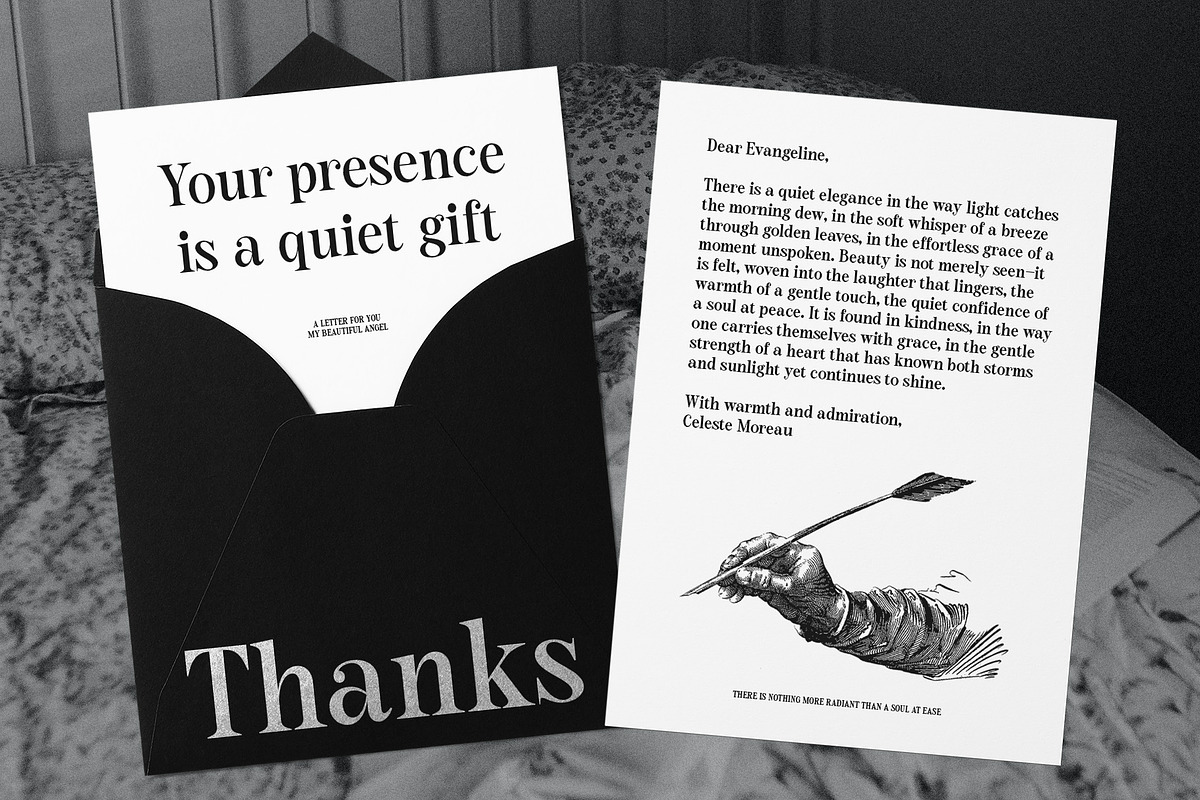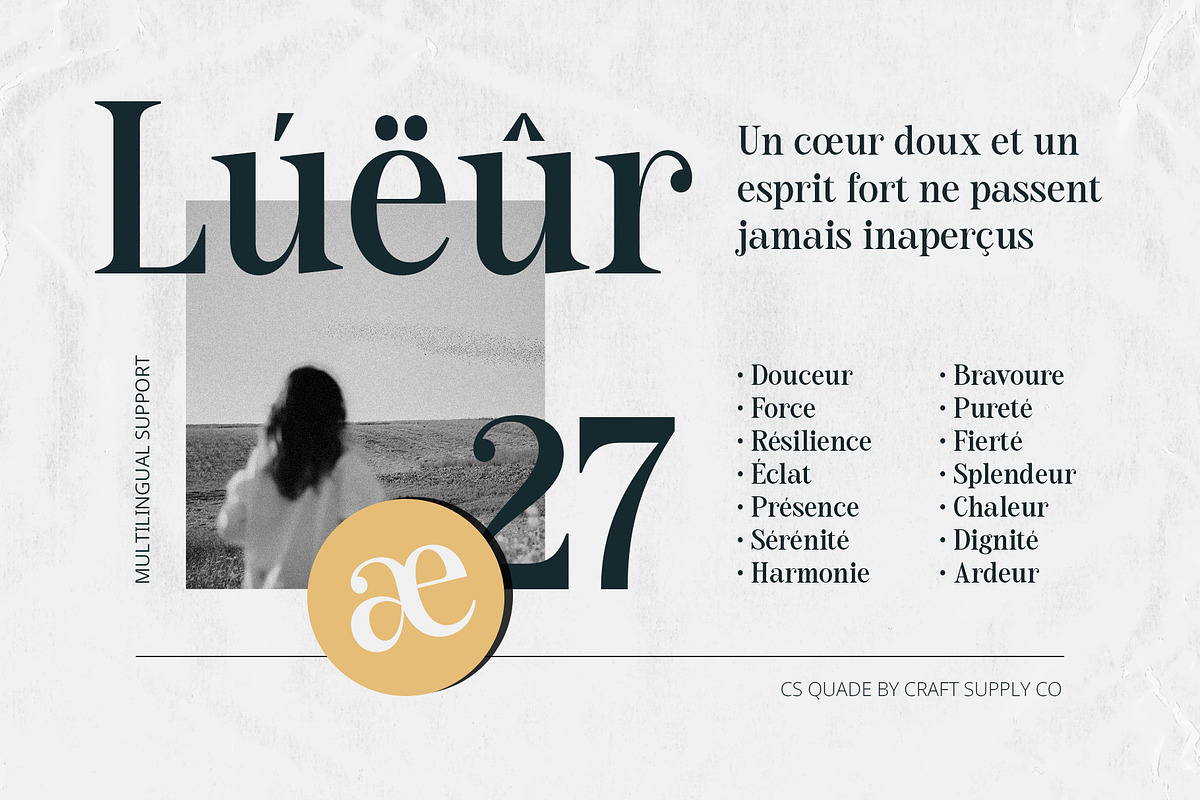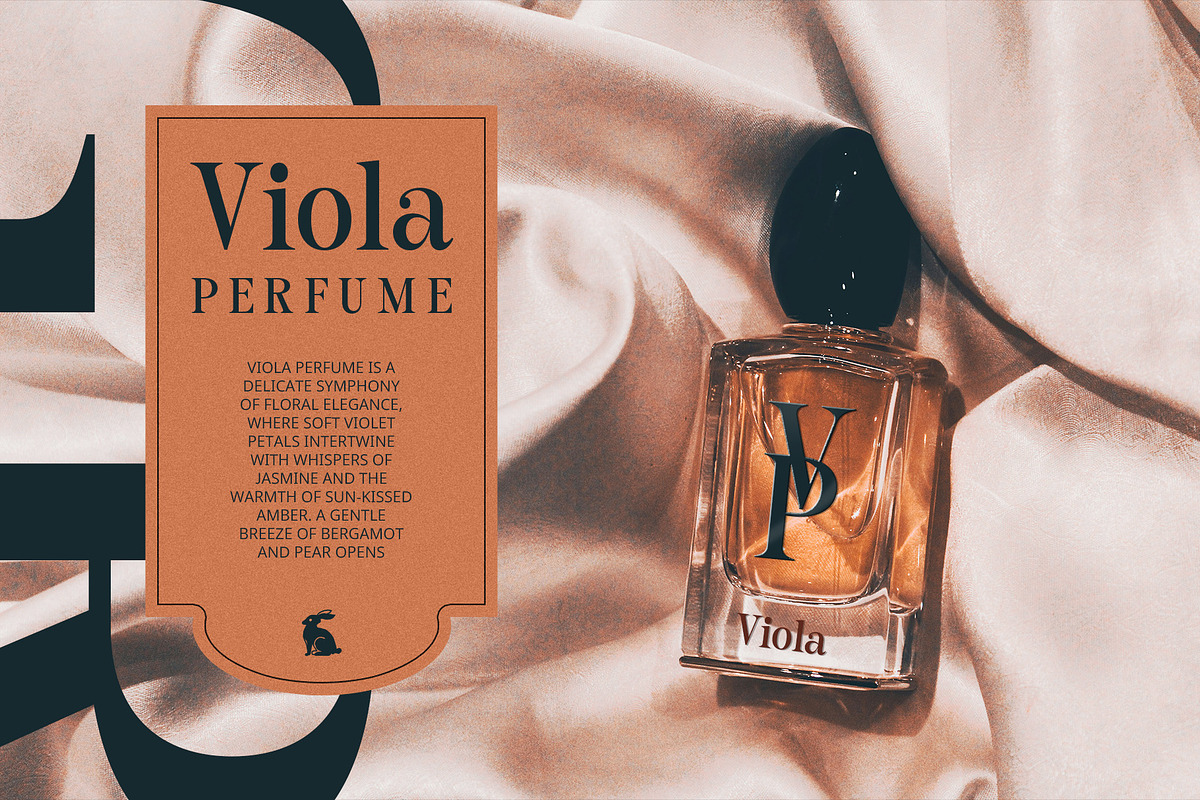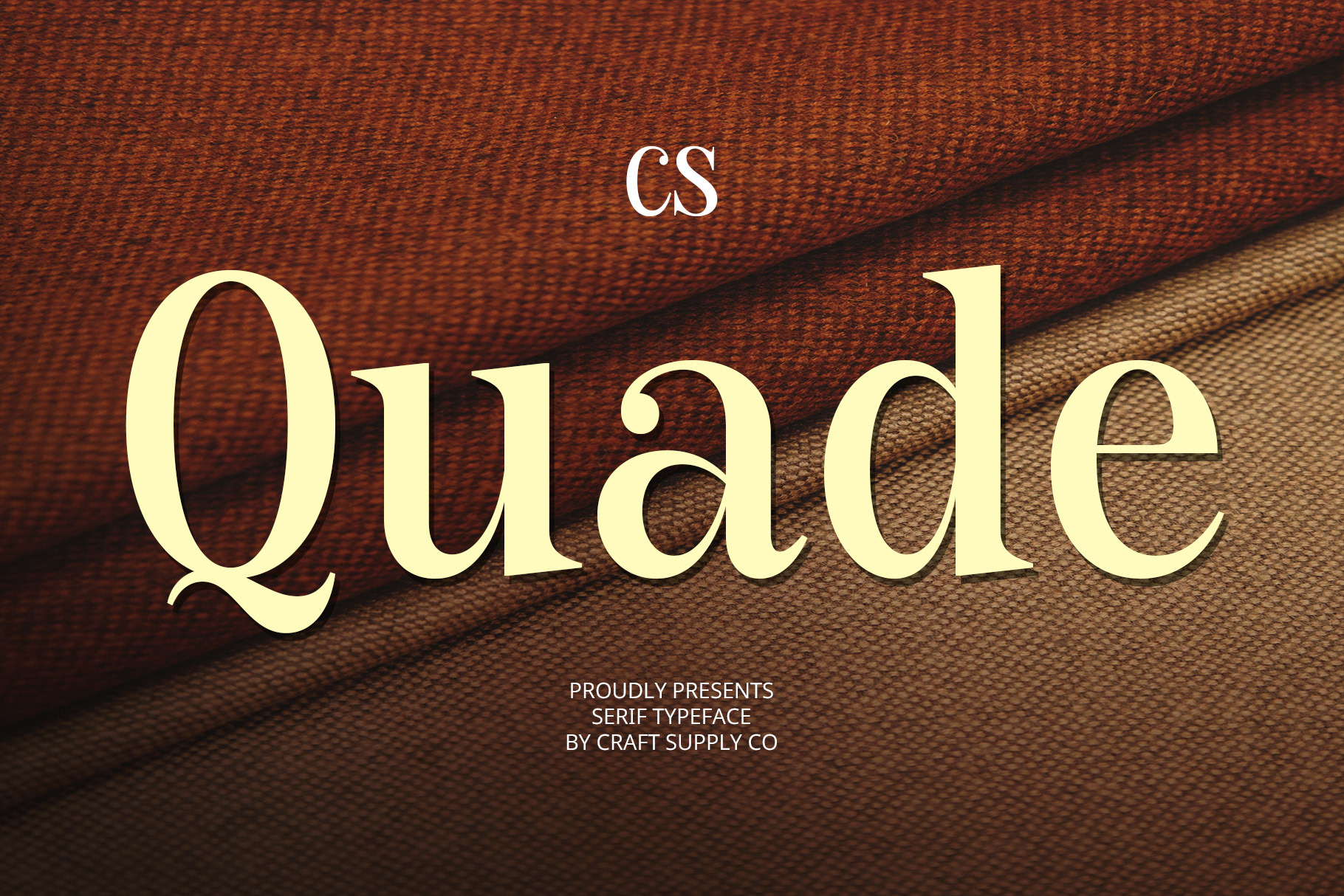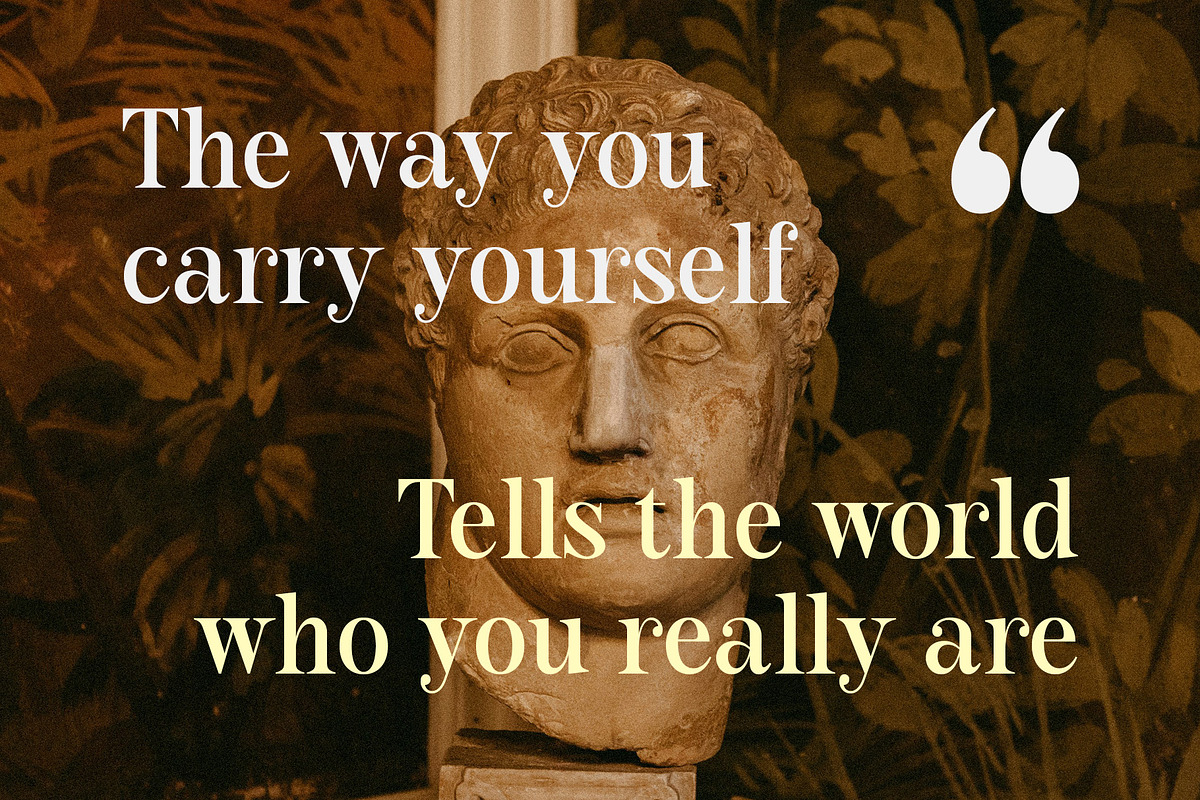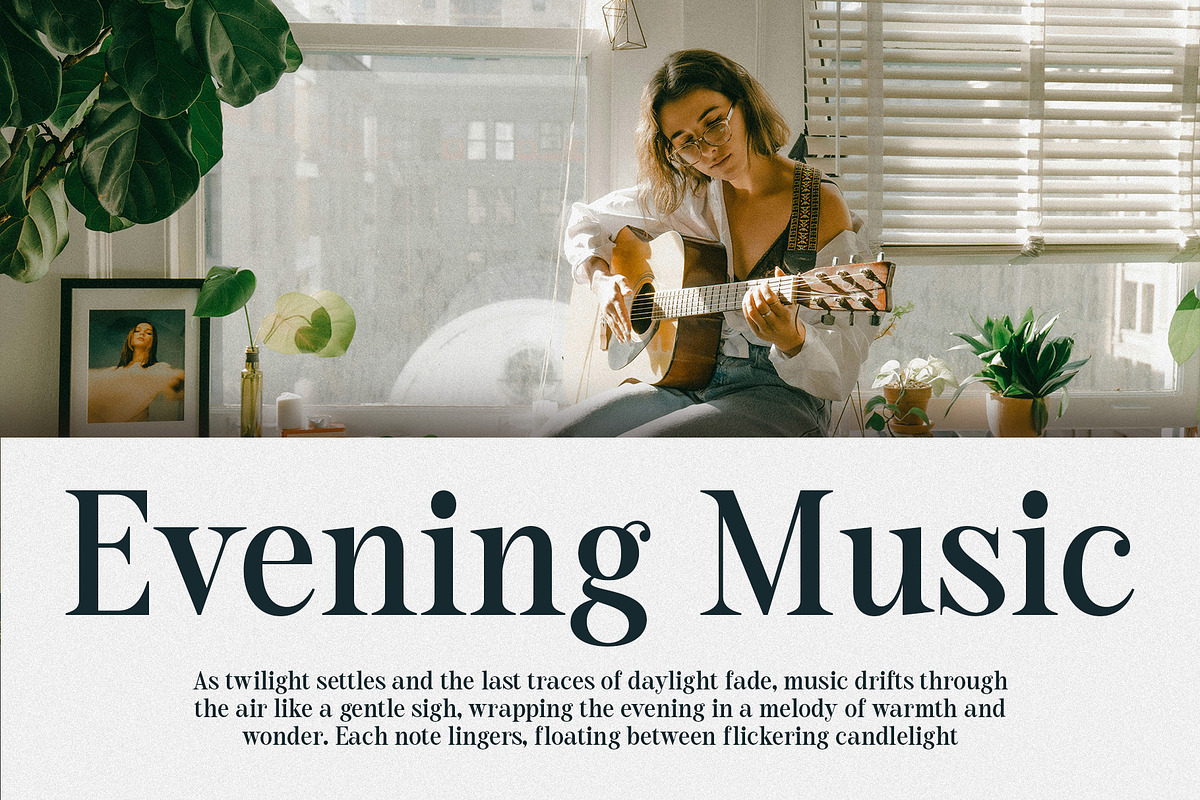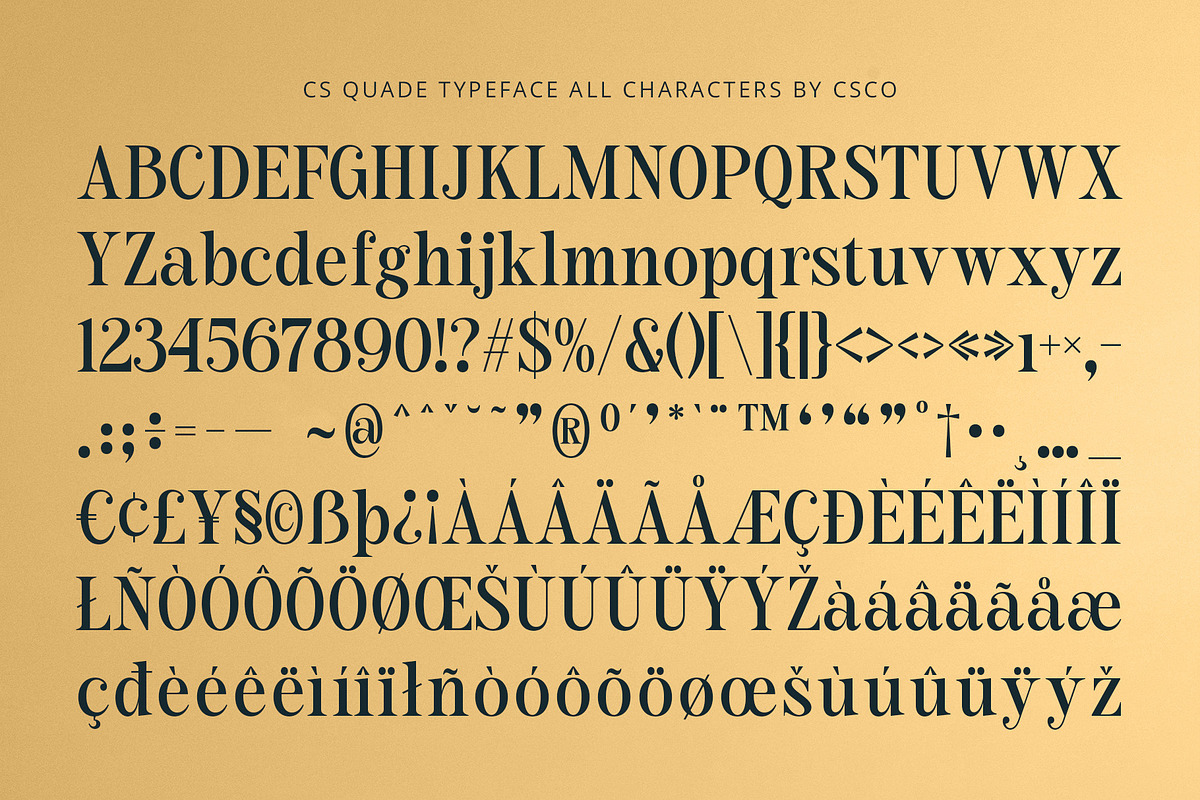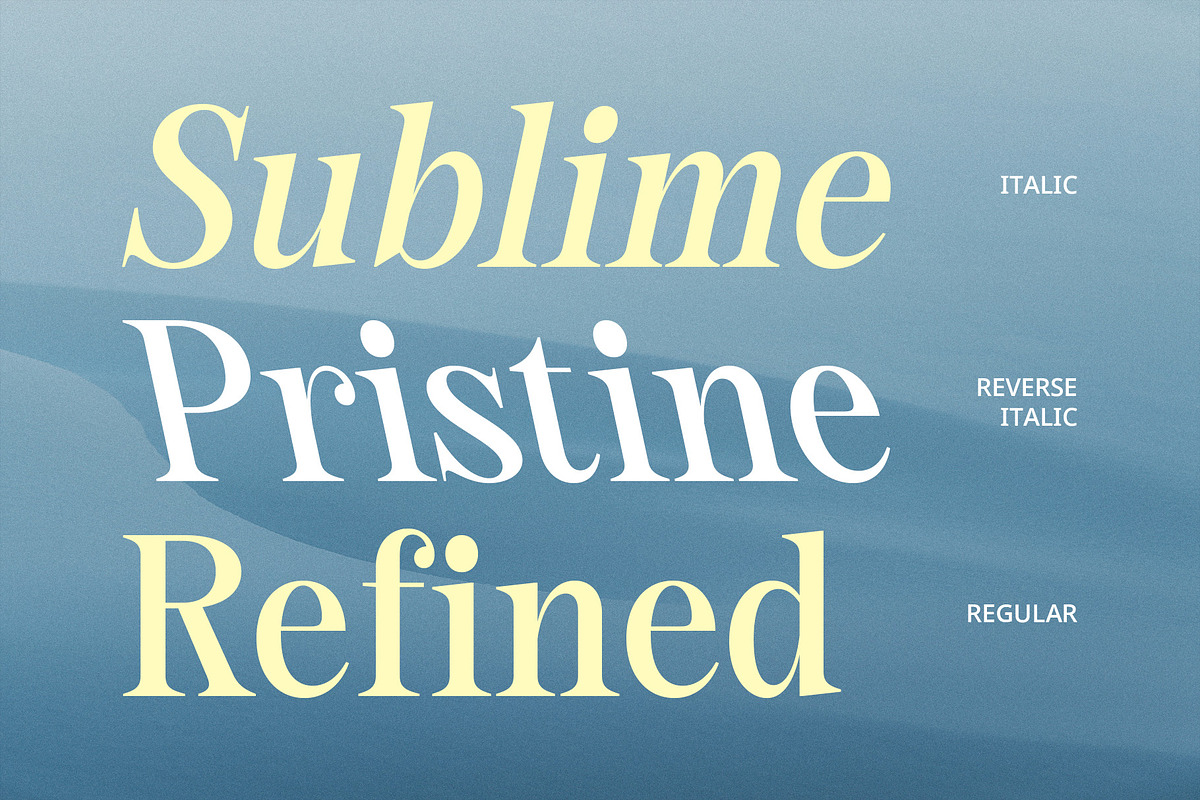
CS Quade – Elegant Font
CS Quade – Elegant Font: A Fusion of Classic Beauty and Modern Simplicity
A Long Serif Modern Classic Font CS Quade is a refined modern serif font that embodies elegance and charm. With its tall, slender letterforms and gracefully elongated serifs, it blends luxurious classic details with contemporary minimalism. This sophisticated design creates a timeless yet fresh aesthetic, making it a perfect choice for high-end projects.
Graceful and Well-Balanced Design Every letter in CS Quade is meticulously crafted with extended serifs that enhance its artistic beauty. The well-proportioned structure maintains readability while adding a sense of prestige and exclusivity. Its delicate yet strong presence makes it an excellent choice for projects that require a balance of sophistication and modernity.
Perfect for Luxury and High-End Designs CS Quade is ideal for wedding invitations, premium branding, fashion editorials, and upscale product packaging. Whether used for logos, magazine headlines, or luxury marketing materials, this font exudes refinement and romance, making every design feel elevated and polished.
A Statement of Elegance and Prestige With its exquisite letterforms and timeless appeal, CS Quade stands as a symbol of sophistication. It’s a go-to font for designers looking to create an atmosphere of grace and exclusivity. Whether for classic or contemporary applications, CS Quade delivers a stunning and professional aesthetic that captivates and inspires.
- CS Quade Regular
- CS Quade Italic
- CS Quade Reverse Italic